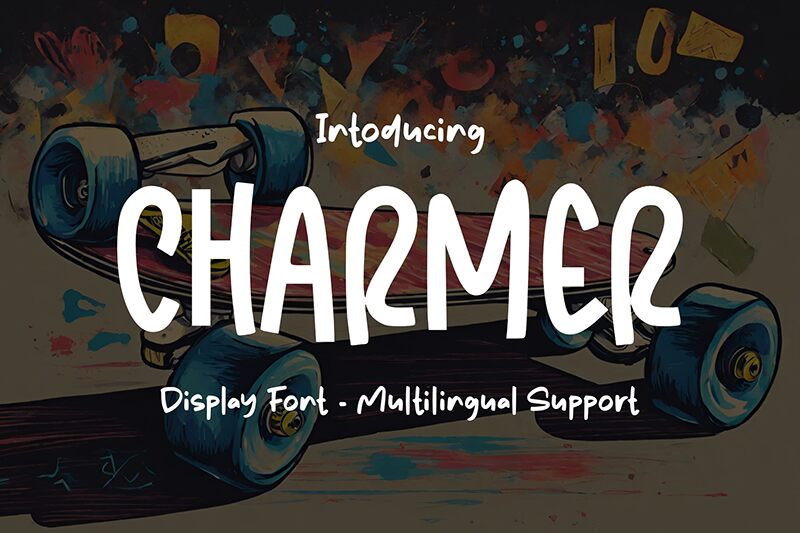
Charmer
Charmer font is a display cartoon typeface introduced by DumadiStyle. It is condensed and rounded, with a whimsical and casual design. Its letters were shaped in a friendly style by being bold, even though they are cut at their corners where the color of texts becomes white. Their hollow—nearly glowy—appearance combined with black is modernly innovative!